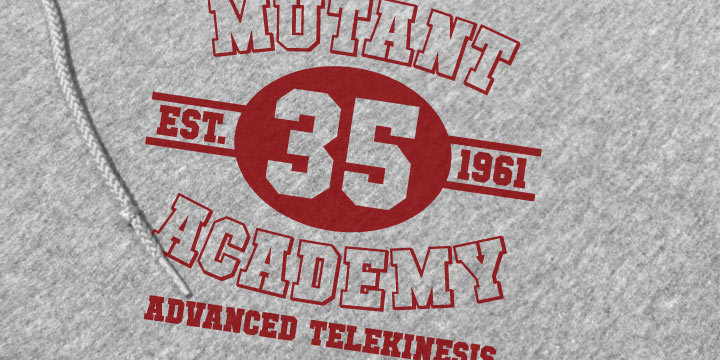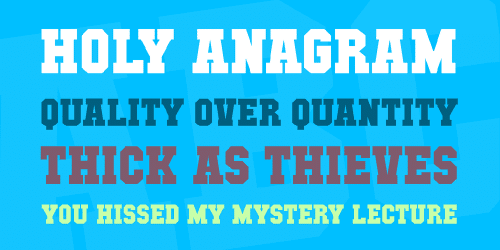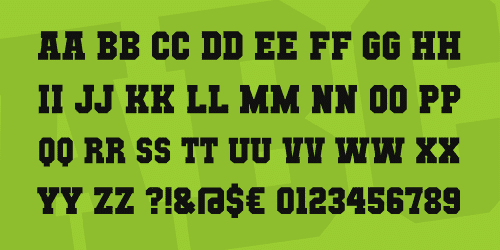
Mutant Academy Font
Math and Science is boring — how about Telekinesis 101? Or maybe you’d just like to brush up on your point-to-point teleportation? This blocky serif font has a collegiate look and comes with Regular and DropCaps.